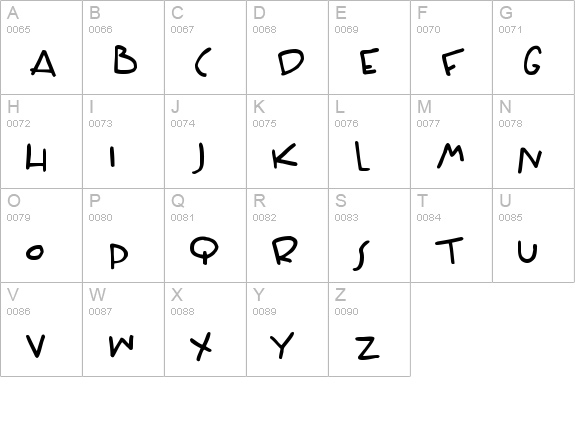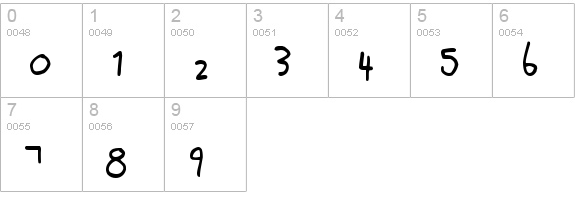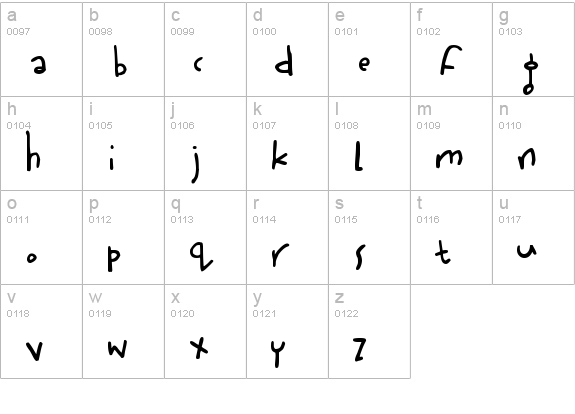
Wiffles Font Details
Introducing Wiffles font, a delightful typeface that will add a touch of whimsy and charm to any design project. With its playful curves and unique letterforms, Wiffles is perfect for those looking to inject some fun into their designs. What sets Wiffles font apart is not just its captivating design, but also its availability as a free download. Yes, you heard it right – Wiffles font is completely free and can be easily obtained at FontsMarket.com. This means that you can access this fantastic font without breaking the bank or compromising on quality. Whether you're designing a children's book cover, a birthday invitation, or a logo for a creative brand, Wiffles font will bring your ideas to life with its cheerful and lighthearted aesthetic. Its quirky characters and smooth lines make it a versatile choice for both digital and print applications. But don't let its playful appearance fool you – Wiffles font is also highly legible, ensuring that your message is conveyed clearly and effectively. Its carefully crafted letterforms maintain a balance between readability and artistic expression, making it suitable for a wide range of projects. So why wait? Head over to FontsMarket.com and download Wiffles font for free today. Join the growing community of designers who have fallen in love with this delightful typeface. With Wiffles font in your arsenal, you'll be able to create designs that stand out from the crowd and leave a lasting impression on your audience.